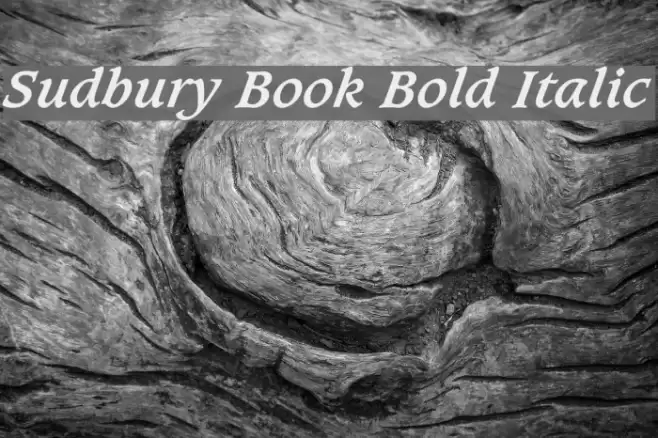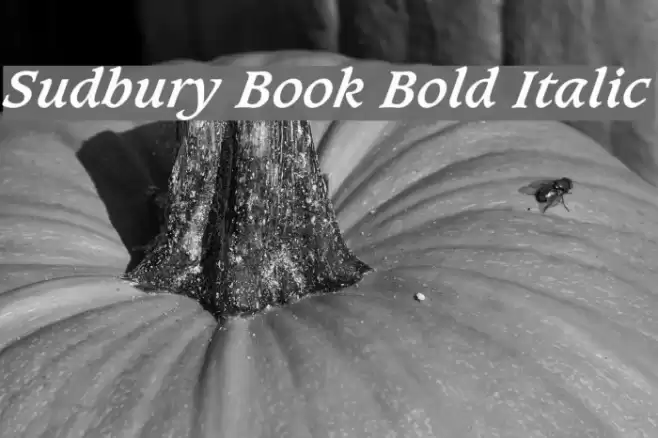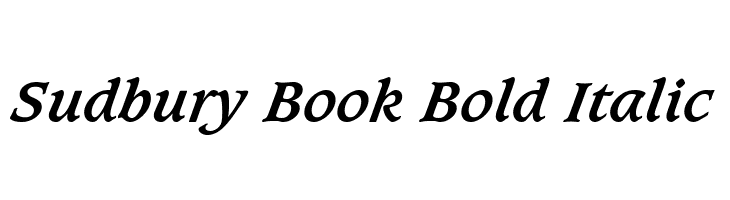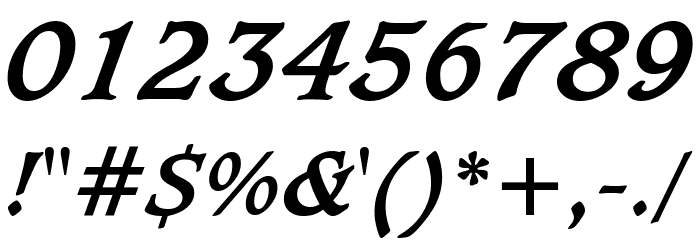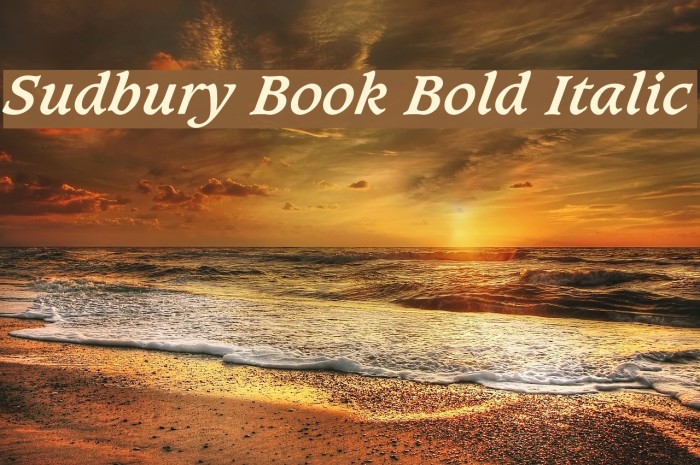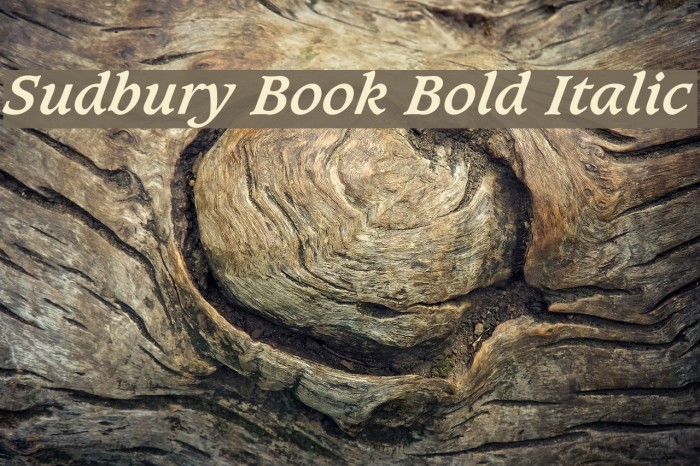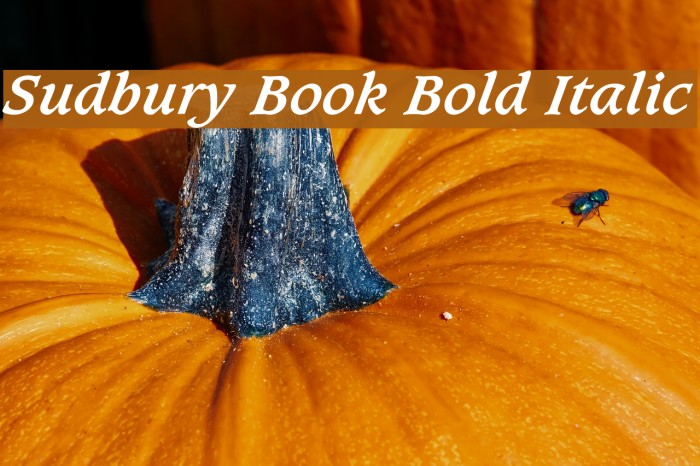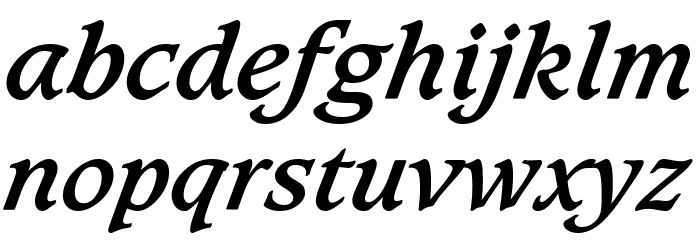
Sudbury Book Bold Italic Font
Sudbury Book Bold Italic Description
This font exhibits a classic serif style with a bold and italicized appearance, giving it a strong yet elegant presence. The characters are well-defined with a slight slant, enhancing the italic effect. The serifs are pronounced, adding a touch of sophistication and formality. The uppercase letters are tall and commanding, while the lowercase letters maintain a consistent flow with smooth curves. Numerals are clear and distinct, matching the overall boldness of the font. Special characters are crafted with the same attention to detail, ensuring uniformity across all glyphs.
A bold, italic serif font with a classic and elegant style from Uncategorized fonts.
- Proposed Projects: Ideal for formal invitations, book covers, editorial headings, and branding that requires a touch of elegance and authority.
- Overall Style: Classic
- Use Case: Headlines, Logos, Editorials